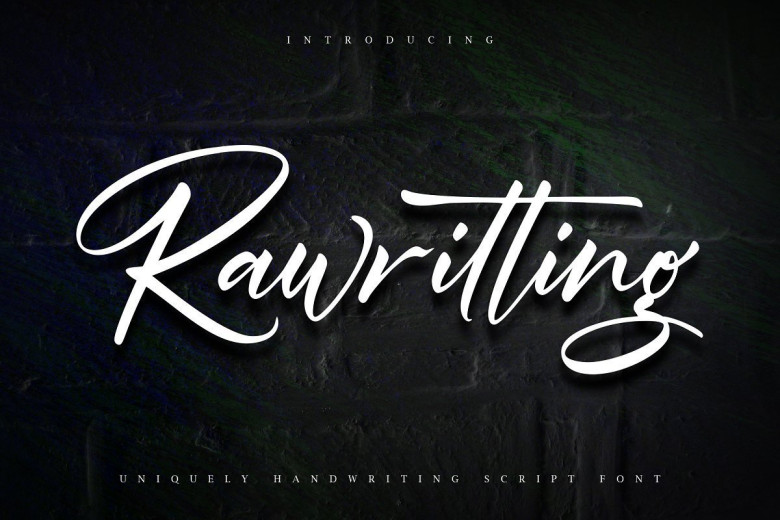
Rawriting Uniquely Handwriting Script Font
Rawriting Uniquely Handwriting Script Font is a new modern & fresh calligraphy typeface with a lot of stylistic alternate make this font looks natural, elegant, and perfect for any awesome projects.
Rawriting Font is perfect for many different project such as logos & branding, invitation, stationery, wedding designs, social media posts, advertisements, product packaging, product designs, label, photography, watermark, special events or anything.